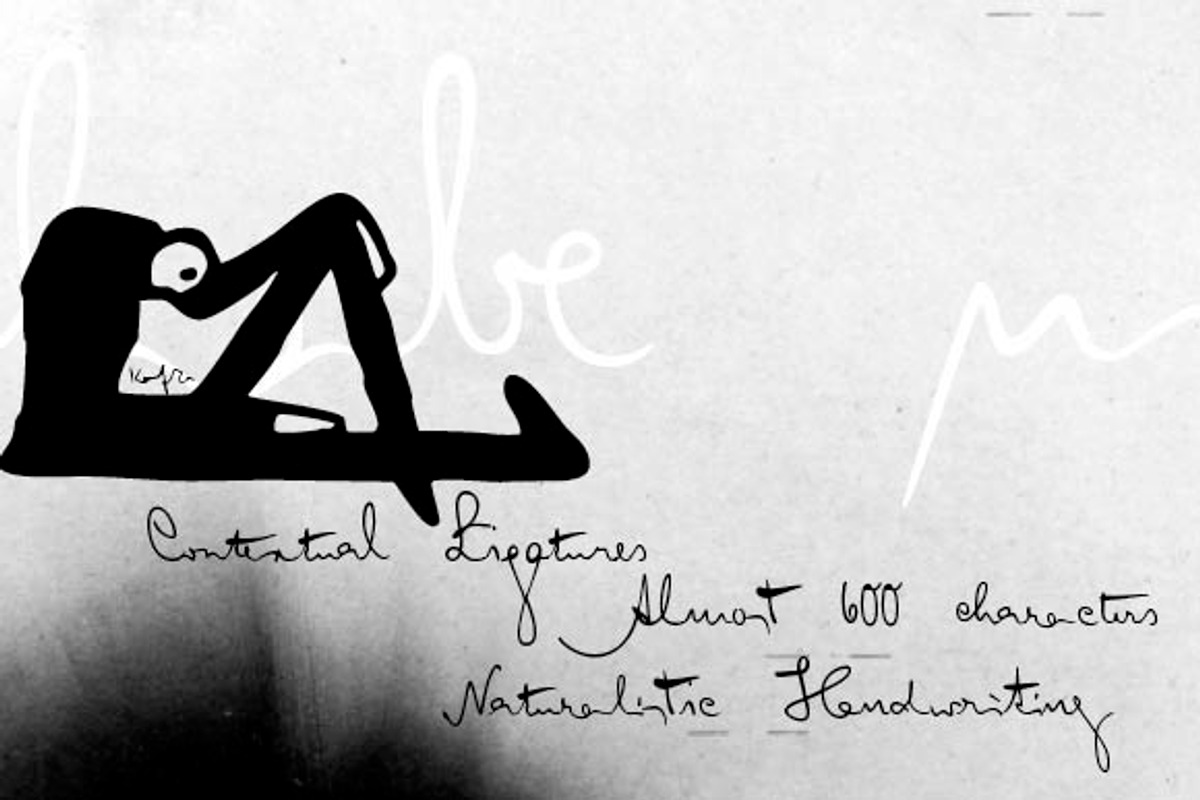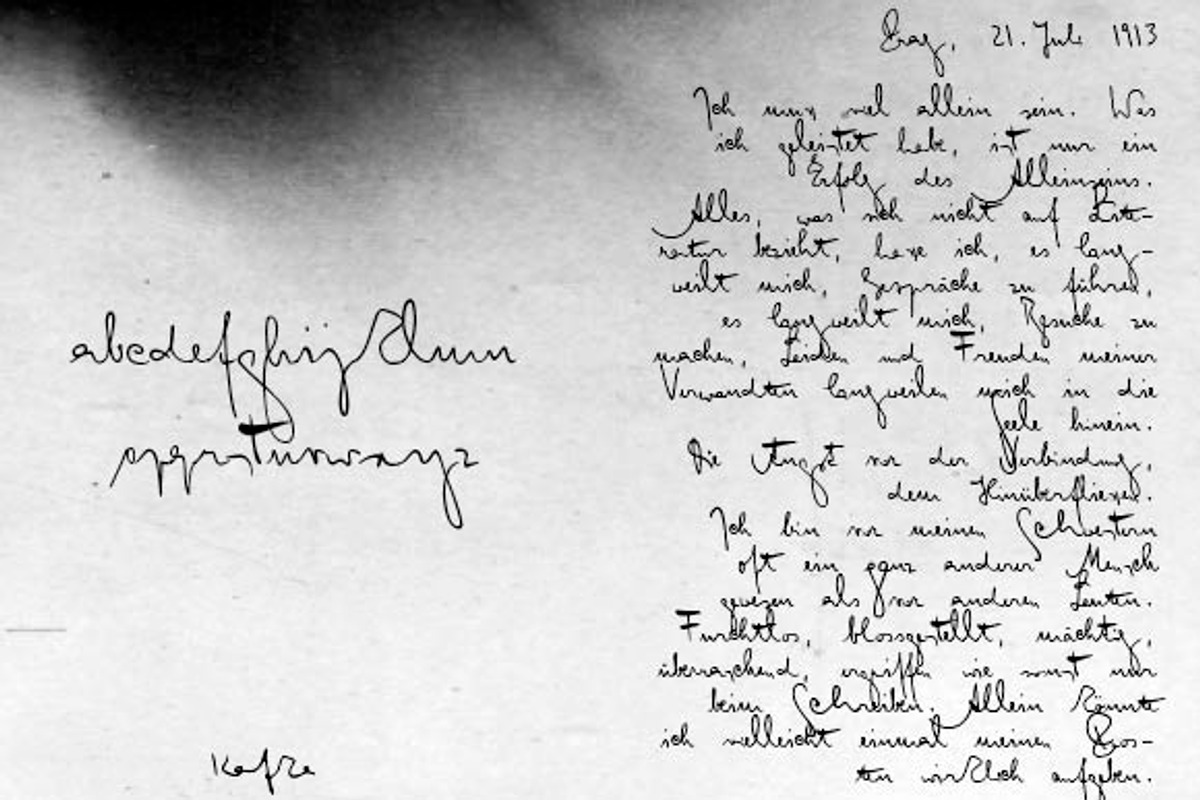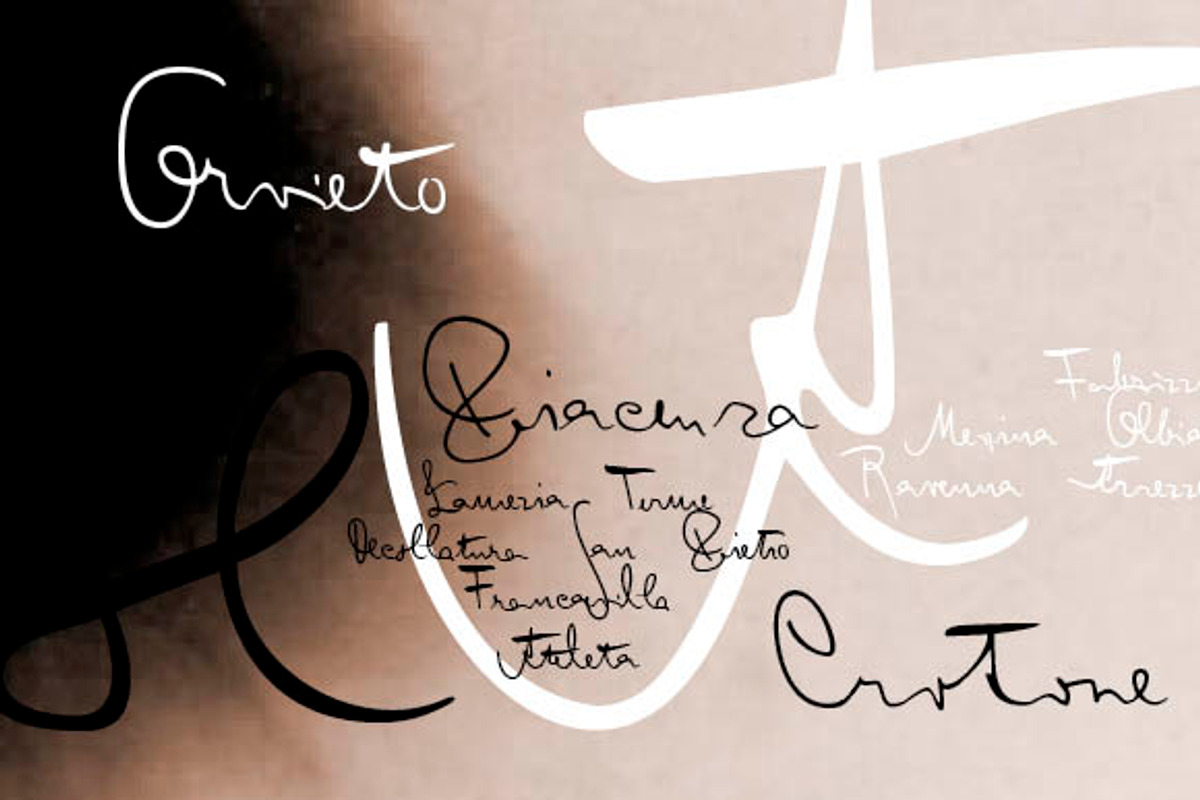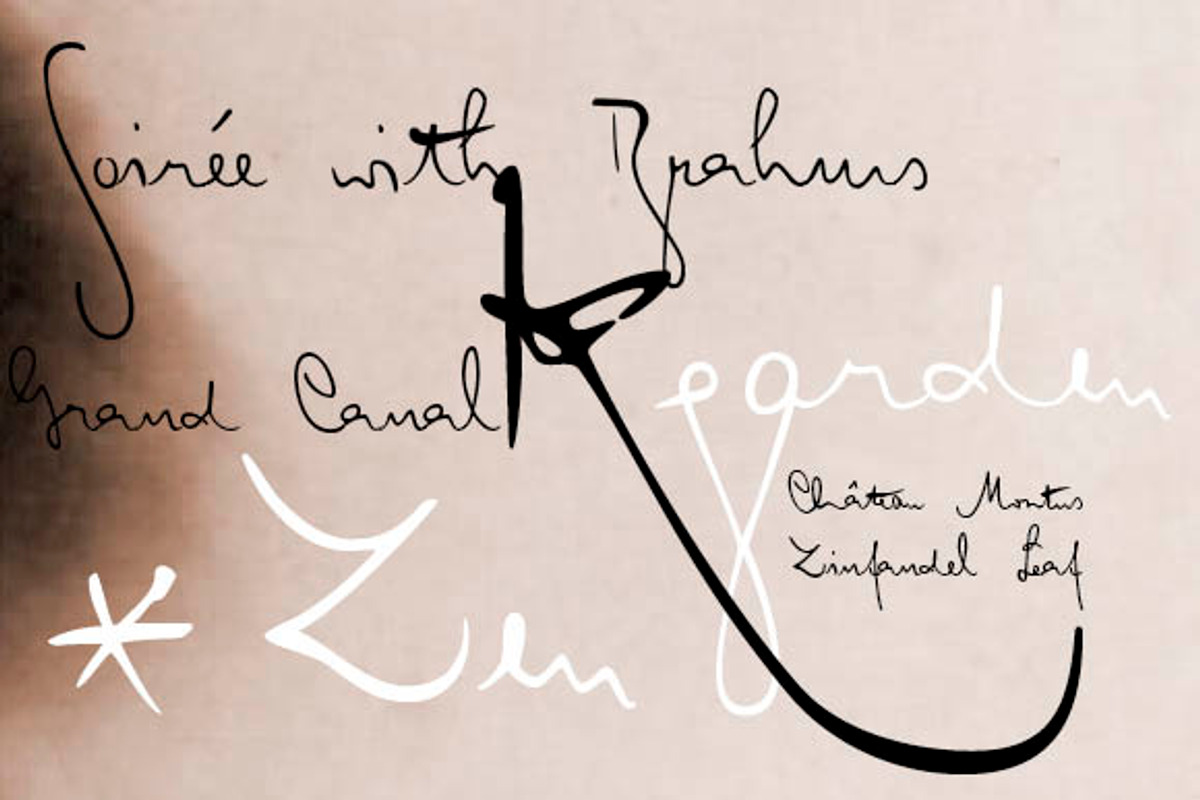
Kafka Font
Kafka Font by Julia Bausenhardt is a font selected for branding, posters, packaging, typography.
- As an extra, several drawings from Kafka‘s diaries are included.
- To resemble naturalistic writing and remain as authentic and irregular as possible (without becoming impossible to read), a great number of
Why Kafka Font is worth a look
Kafka Font by Julia Bausenhardt fits naturally into Branding, posters, packaging, typography.